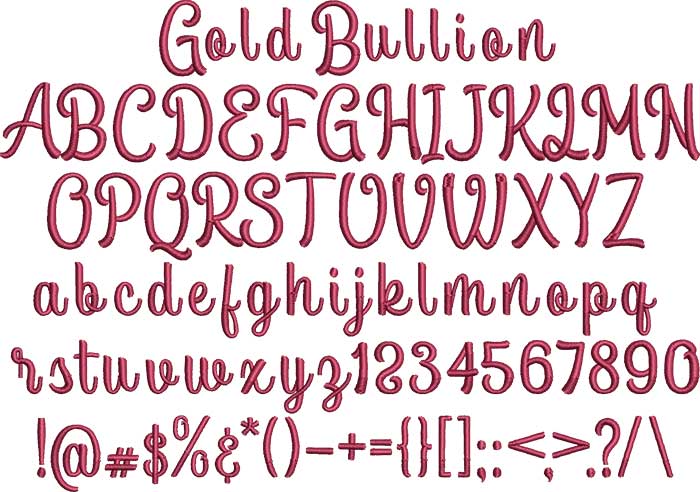
BX Embroidery Font: Gold Bullion
BX Embroidery Font: Gold Bullion (4 sizes) is a casual, upright script machine embroidery font that includes A-Z, a-z, 0-9 and the following punctuation: !@#$%&*()-+={}[]|:;”‘<>,.?/ (90 total characters per size).